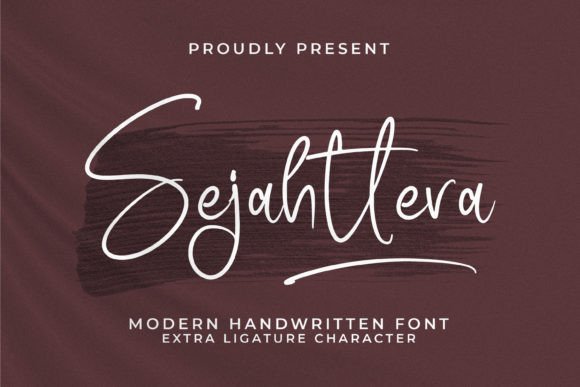
Sejahttera Font: The Perfect Font for Adding a Personal Touch to Your Designs
In a world of digital noise, it's more important than ever to stand out from the crowd. Sejahttera Font, a captivating Modern Handwritten Font, is your secret weapon to create designs that leave a lasting impression.
With its sweeping strokes and elegant curves, Sejahttera Font adds a touch of sophistication and charm to any project. Whether you're designing logos, branding projects, homeware designs, product packaging, mugs, quotes, posters, shopping bags, t-shirts, covers books, business cards, invitation cards, greeting cards, labels, photography, watermarks, or special events, Sejahttera Font will elevate your designs to new heights.
**Unleash Your Creativity with Sejahttera Font**
Sejahttera Font is the perfect choice for designers who want to add a personal touch to their work. With its versatile style, Sejahttera Font can be used to create a wide range of looks, from classic and elegant to modern and edgy.
Let your imagination run wild as you explore the endless possibilities of Sejahttera Font. Create logos that are as unique as your brand, design homeware that reflects your personal style, or craft invitations that are sure to impress your guests.
**Why Sejahttera Font is the Perfect Choice for You**
* **Modern and stylish:** Sejahttera Font's stylish design is perfect for creating designs that are both modern and timeless.
* **Versatile:** With its wide range of applications, Sejahttera Font is perfect for any project, from logos to invitations to product packaging.